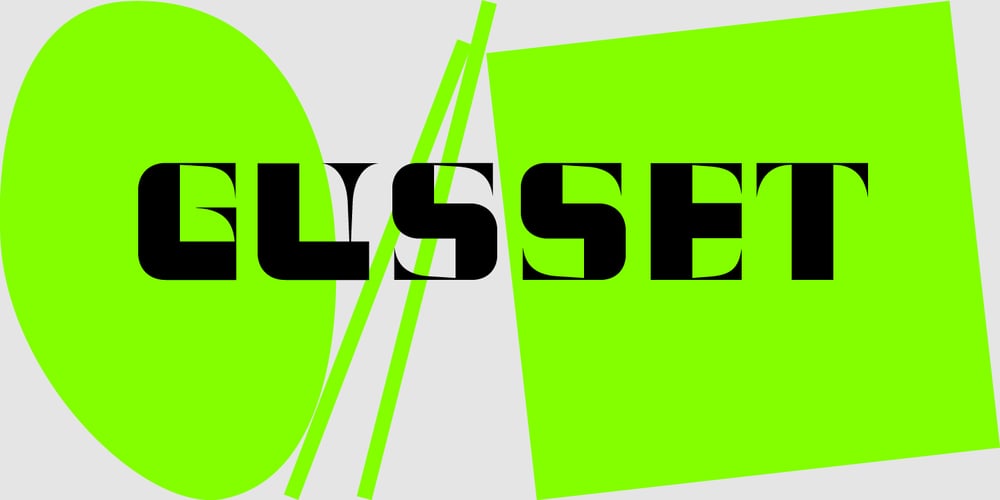
Gusset Font Family was designed by Victor Pesotsky and published by Pesotsky Victor. Gusset contains 1 styles and family package options. Gusset is a simple modular font. It was created for headlines and posters. It creates a dense and interesting texture in the text set. Simple rounded curves contrast with “wedges”. Gusset supportsBasic Latin, Cyrillic and more than 100 languages all together.The font was designed by Viktor Pesotsky.